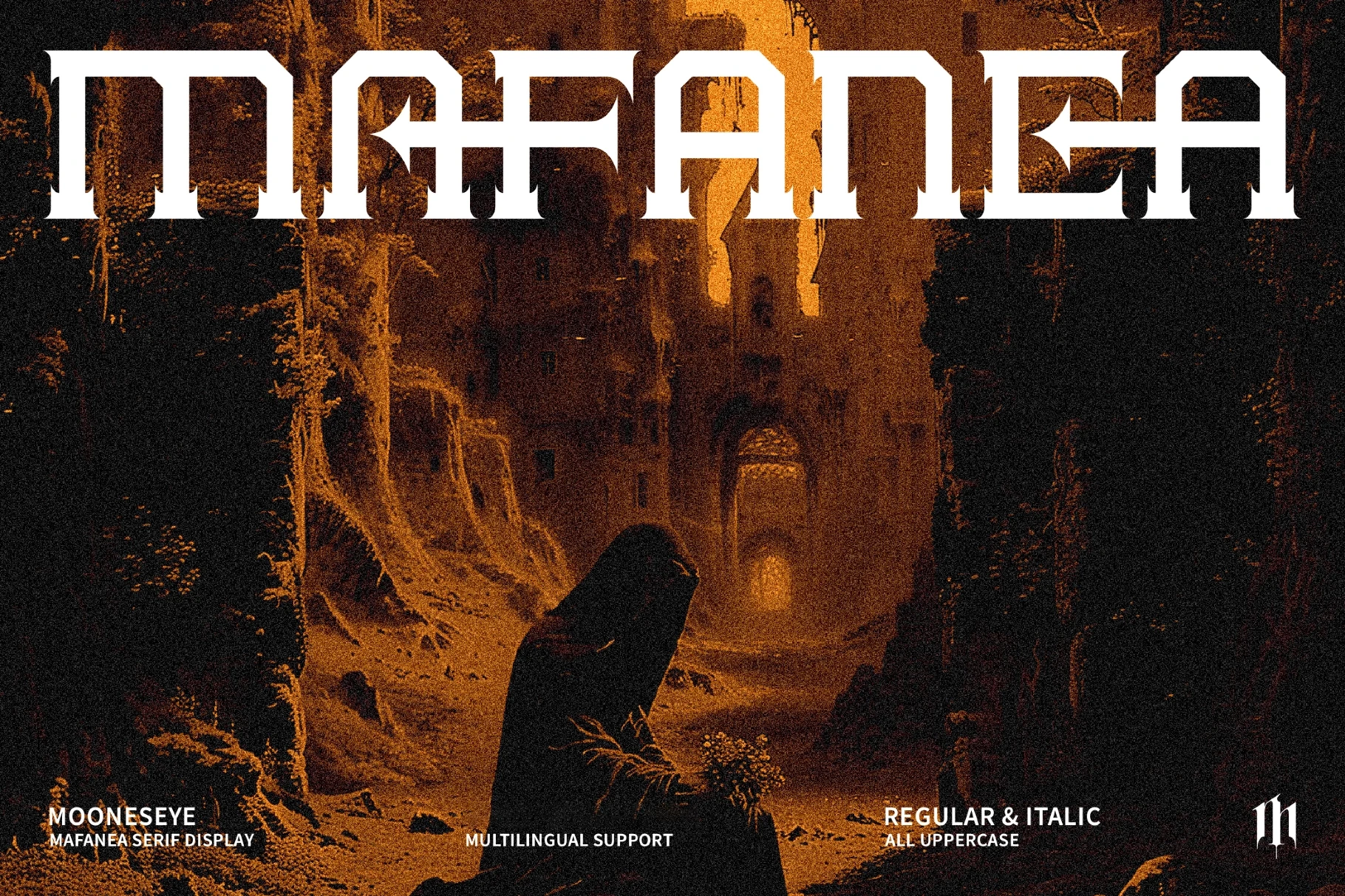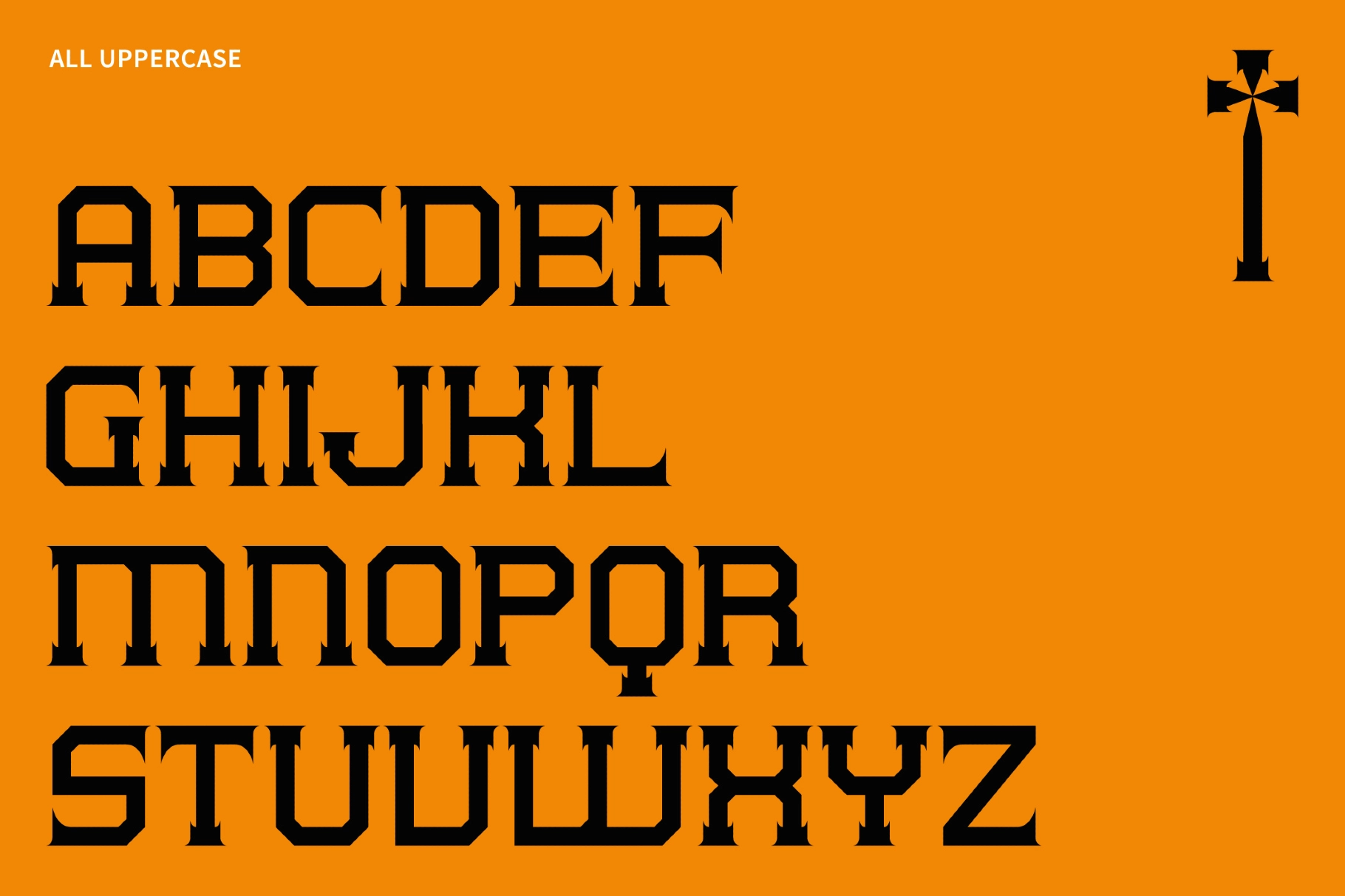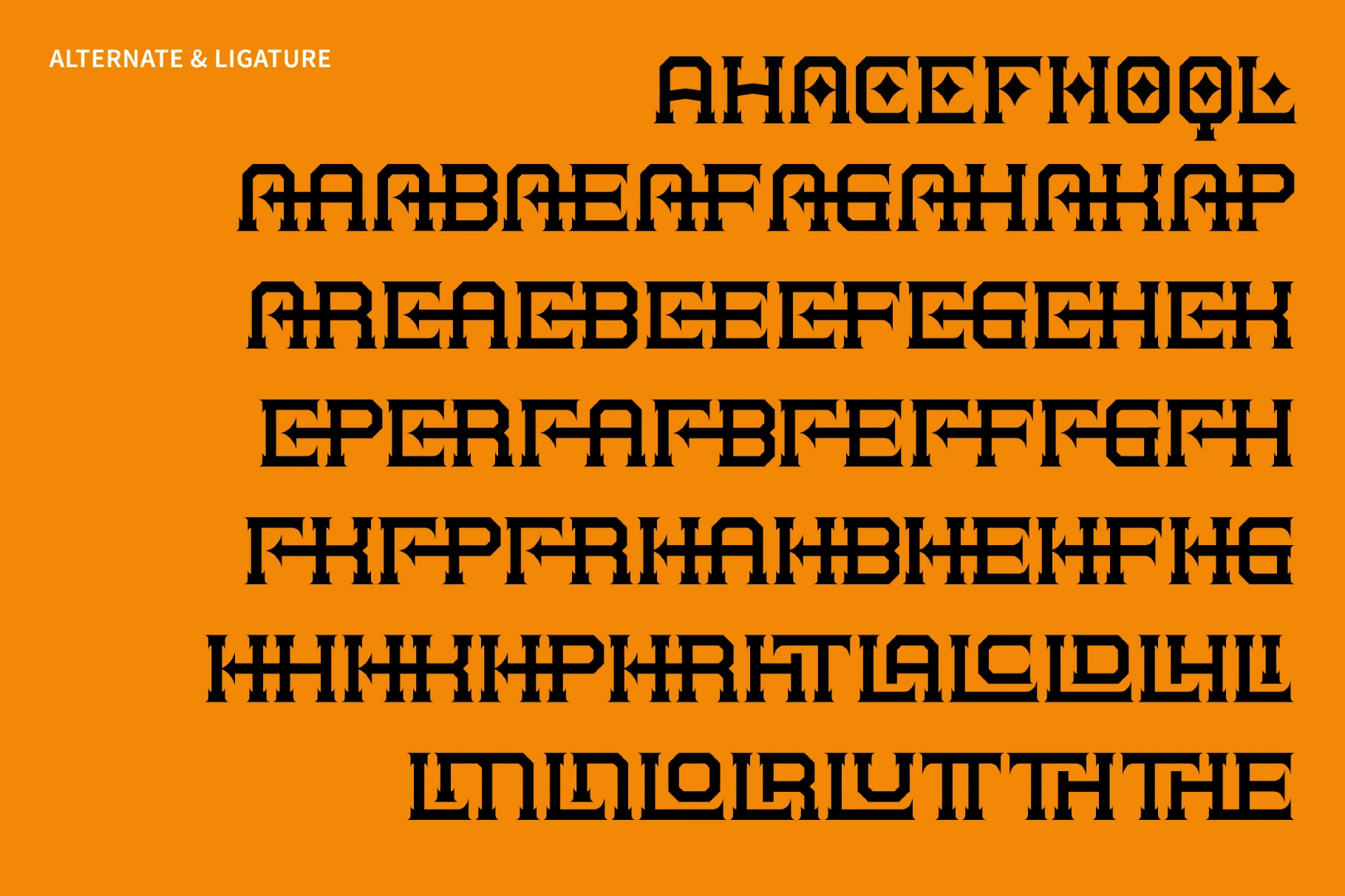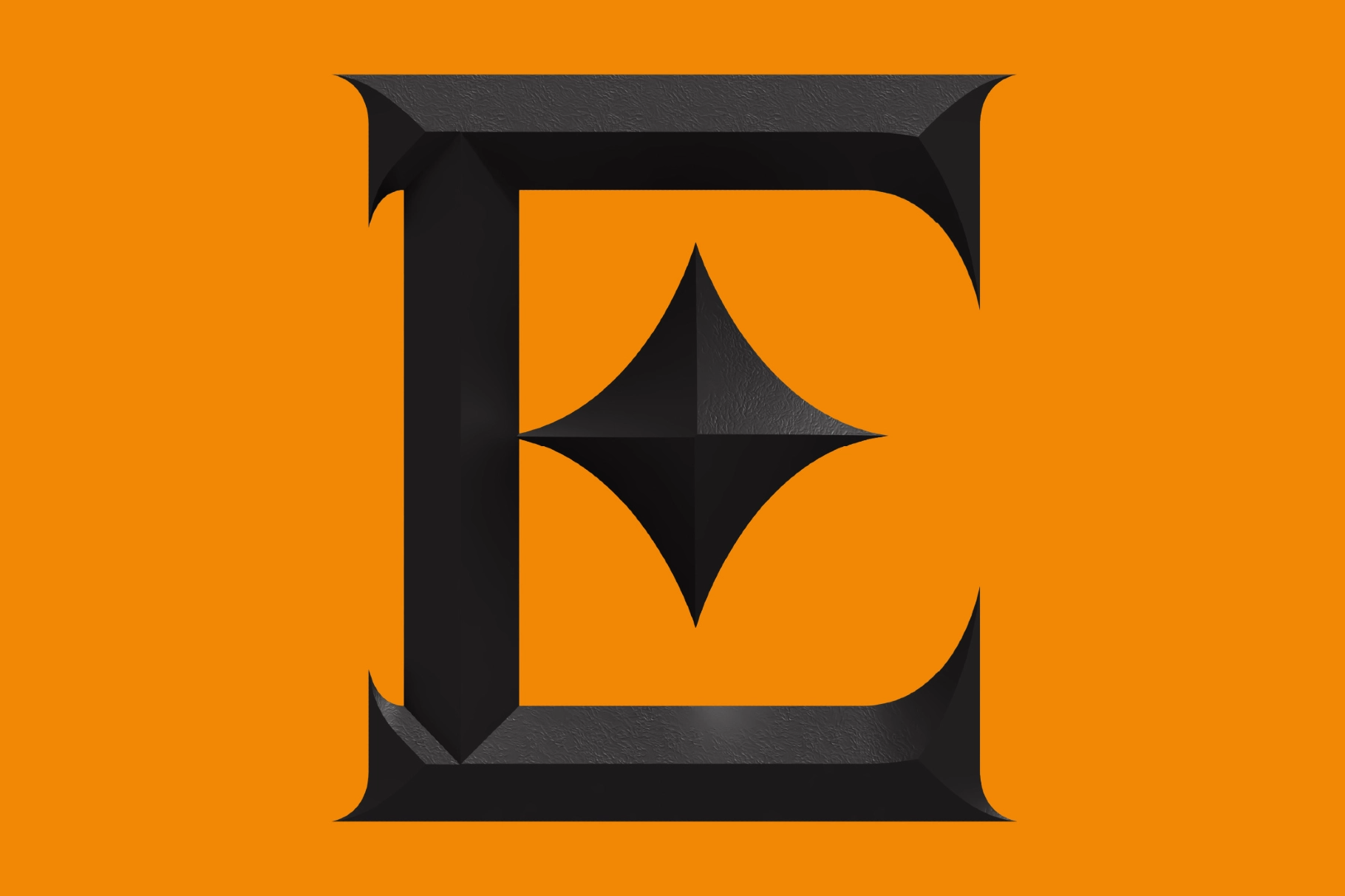
Mafanea - Gothic Monogram Serif Font
Carved with sharp spurs, slab-like weight, and a medieval bite, this gothic typeface is made for titles that need authority without asking twice. Its uppercase letters carry a monogram structure with angular cuts, tight rhythm, and ornamental ligatures that give every word a ceremonial edge.
Mafanea works for fantasy book covers, metal band logos, game titles, medieval posters, tattoo lettering, brewery labels, tarot packaging, apparel graphics, album covers, event branding, occult editorials, and more. The regular and italic styles make it easy to shift from rigid headline work to a sharper, faster editorial tone.
- 2 styles: Regular, Italic
- All uppercase
- Alternates & ligatures